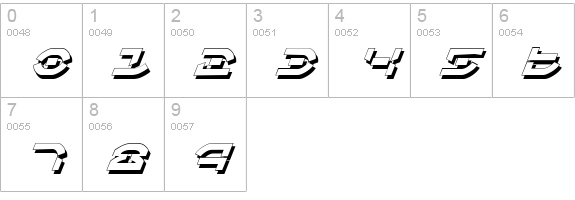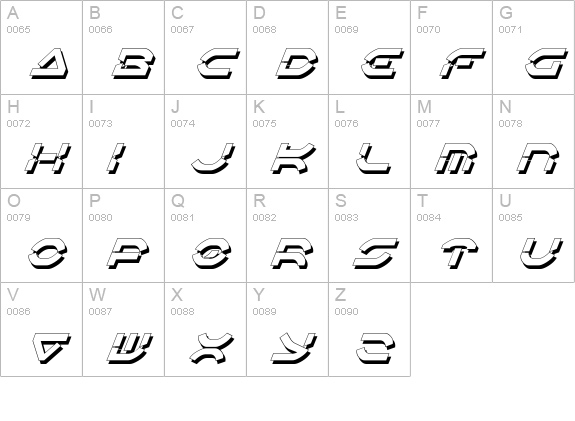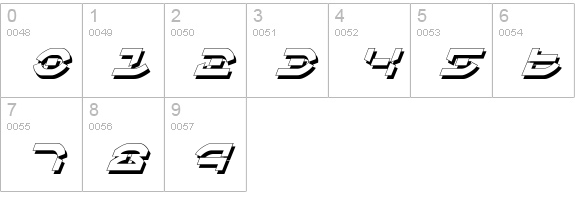
Oberon Deux Shadow Italic is a distinctive, italic variant in the Oberon typeface family \xE2\x80\x94 well suited to design and typography projects.
The Oberon Deux Shadow Italic font is a striking and elegant typeface that exudes sophistication and modernity. Its unique shadow effect adds depth and dimension to any design project, making it perfect for logos, branding, and editorial designs. The italicized style gives a sense of dynamism and movement, making your text stand out with a touch of flair. What sets Oberon Deux Shadow Italic font apart is not only its stunning design but also its availability for free download at FontsMarket.com. This means that designers and creatives can easily access this premium font without any cost, making it a valuable addition to their font library. Whether you're working on a personal project or a client's design, Oberon Deux Shadow Italic font is sure to elevate your work with its professional and polished look. Don't miss out on the opportunity to enhance your designs with the Oberon Deux Shadow Italic font - download it for free today at FontsMarket.com and bring a touch of sophistication to your projects!